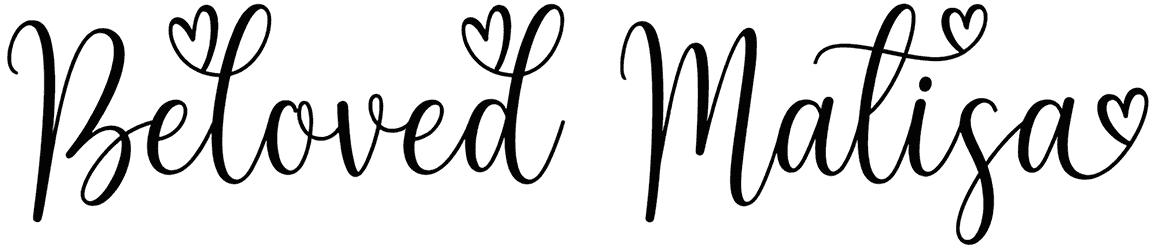
Beloved Matisa Font
A lovely script font, the same as the Beloved Matisa, has the real potential to boost the efficiency of your graphic content and make it look much more interesting to the audience.
Since this Valentine’s Day font comes with rounded letters and crooked edges, it can evoke a vibe of delicacy, softness, personalization, or vivacity in the audience’s minds. It can be perfectly matched with any kind of creative ideas, like illustrations, the user interface of applications, stickers, or product packaging.